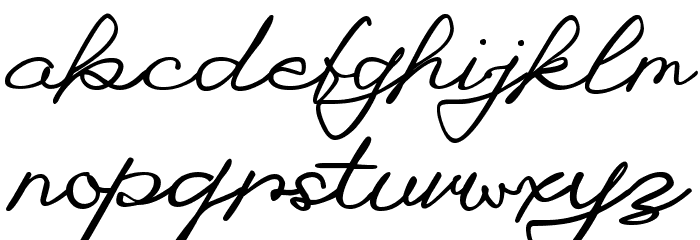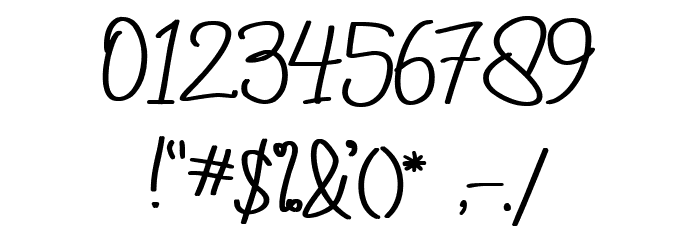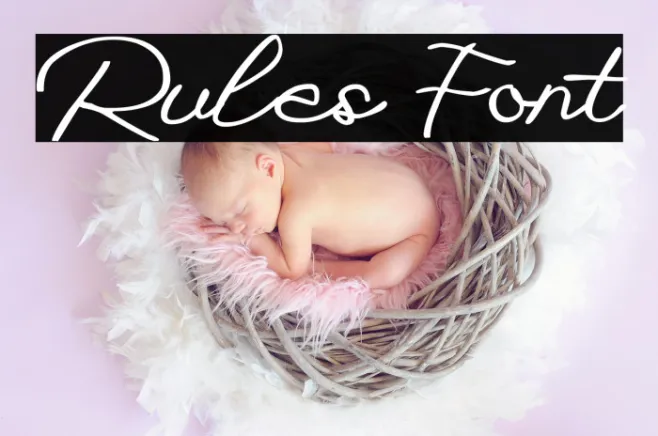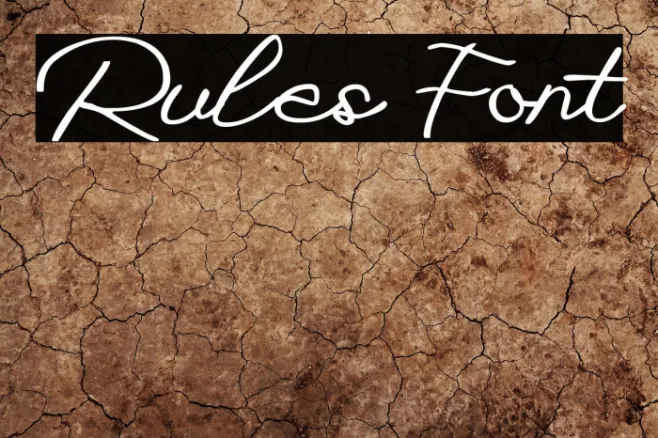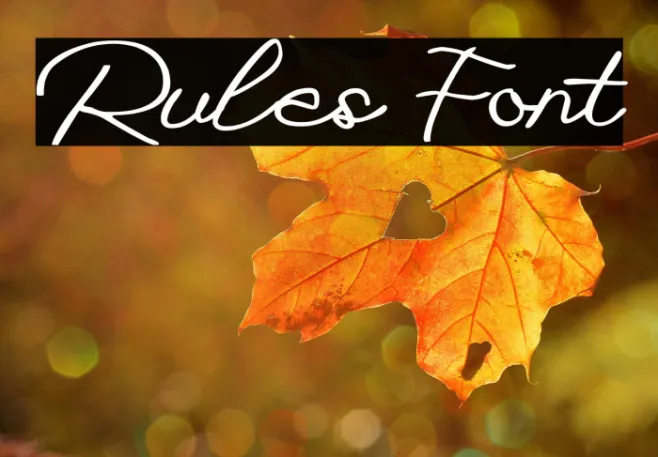
Rules Font
This font features a flowing, cursive style that mimics elegant handwriting. The uppercase letters are slightly elongated with smooth curves and subtle flourishes, giving them a sophisticated appearance. The lowercase letters maintain a consistent flow, connecting seamlessly to create a natural, handwritten look. The numerals are clear and distinct, with a slight slant that complements the overall cursive style. Special characters are crafted with the same attention to detail, ensuring they blend well with the rest of the font. This font exudes a sense of elegance and personal touch, making it ideal for projects that require a humanistic and artistic feel.
A cursive, handwritten-style font with elegant, flowing characters.
- Proposed Projects: Ideal for wedding invitations, personal letters, branding, and artistic projects that require a personal touch.
- Overall Style: Elegant, Handwritten
- Use Case: Invitations, Personal letters, Artistic branding